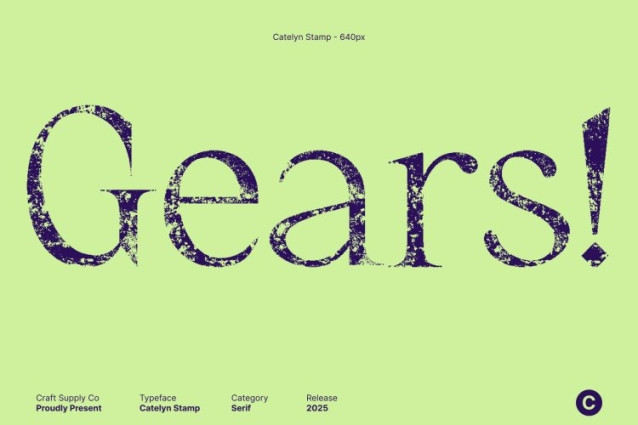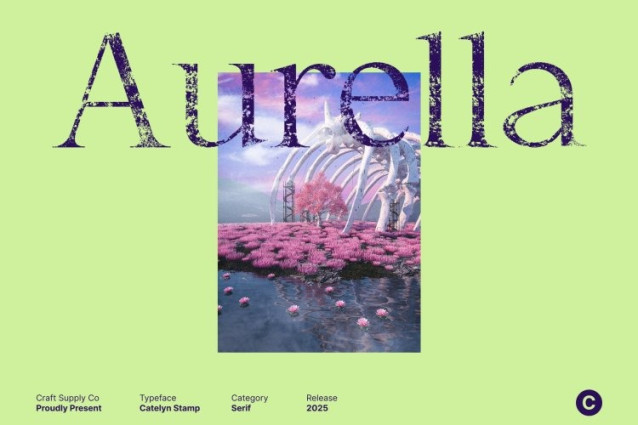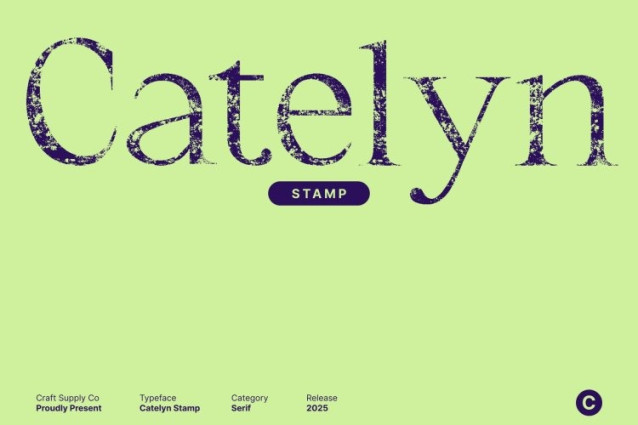
Catelyn Stamp Font
Catelyn Stamp Font This is a modern classic serif font crafted with clean, sleek shapes and refined contemporary lines. Its polished structure creates an elegant and sophisticated appearance, making it perfect for designers who want a typeface that feels timeless yet fashionably current. Every curve and serif is designed to captivate, adding a luxurious touch to any layout.
Artistic Stamp Texture for Expressive Character
What elevates this font is its beautifully applied stamp effect. This textured detail introduces a handcrafted, vintage-inspired feel to the font’s crisp modern form. Each character carries subtle imperfections and artistic grain, creating a unique tactile presence that feels expressive and authentic. The result is a typeface that blends refinement with rich, nostalgic depth.
Perfect for Vintage Branding, Editorial Layouts, and Dramatic Posters
This font excels in high-end branding, editorial spreads, and striking poster designs. Its blend of modern clarity and textured warmth makes it ideal for vintage branding, luxury packaging, magazine titles, book covers, and creative projects that aim to convey sophistication with dramatic flair. Whether used in large headlines or stylish compositions, it always stands out.
A Sophisticated Serif with Timeless Drama and Artistic Charm
Combining contemporary elegance with vintage grit, this font offers a distinctive typographic voice that is both captivating and expressive. Its sleek form, paired with handcrafted texture, ensures every design feels elevated, artistic, and full of character.